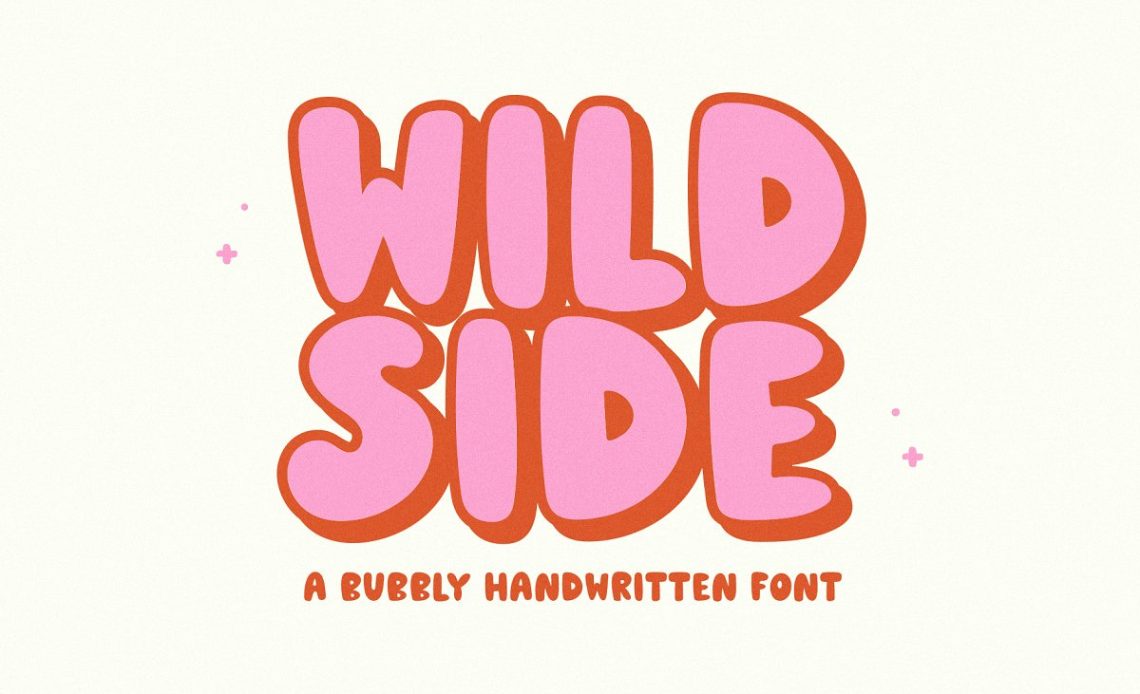
Introducing Wildside, the bubbly handwritten font that will bring your designs to life! Created by Kaitlynn Albani, this font is perfect for anyone looking to add a retro vibe to their projects.
Wildside includes three fonts: regular, shadow, and outline. With the ability to layer these fonts, you can create fun and unique words and quotes that will catch the eye of anyone who sees them.
But Wildside isn't just versatile - it's also incredibly functional. Whether you're branding your business, creating t-shirts or logos, or designing social media posts, Wildside will help you stand out from the crowd. And with OTF/TTF included, you'll have everything you need to get started right away.